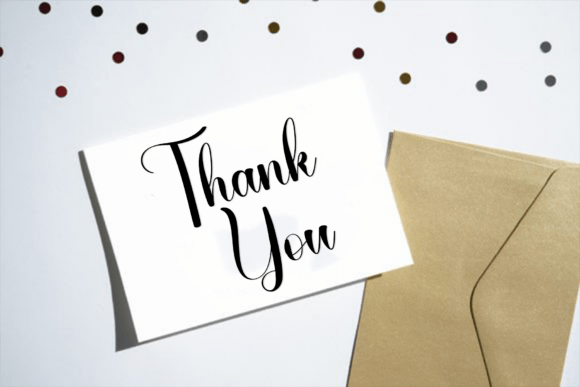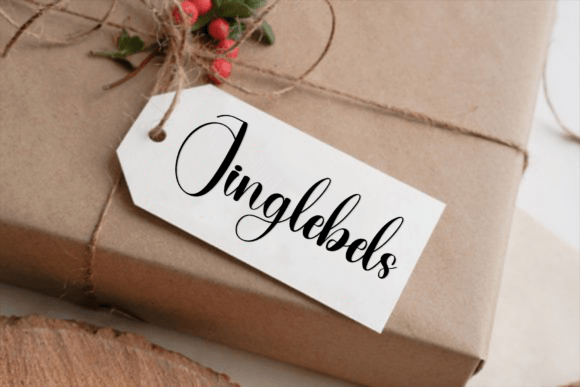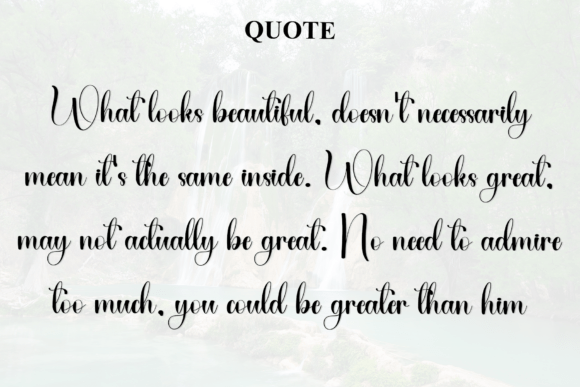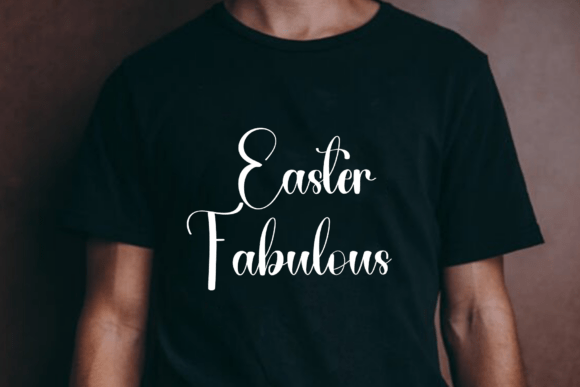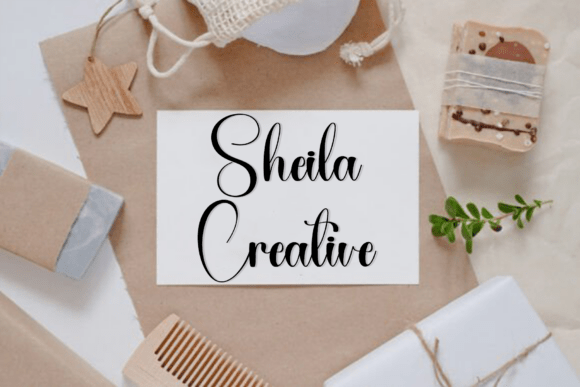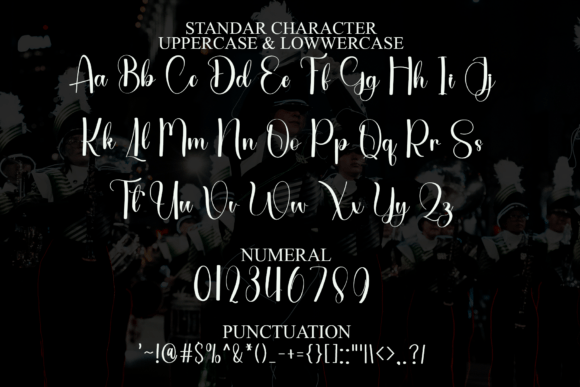
Unlock the Magic of Delighful Midnight Font
There’s something special about a late-night creative session, the world outside has slowed down, and it’s just you, your laptop, and the blank canvas of a new project. The hours tick by, and before you know it, the clock strikes midnight, but the ideas keep flowing. This is where the perfect font can make all the difference – a font that’s warm, inviting, and makes your design feel like a work of art.
Enter Delighful Midnight Font, a casual and creative typeface that’s designed to bring a smile to your face. With its round, playful strokes, this font is perfect for personal projects, invitations, and social media graphics that need a touch of warmth and friendliness. As a designer, you’ll appreciate the unique charm of Delighful Midnight Font, which adds a personal touch to any design.
Delighful Midnight Font Key Features
- Font Family: Delighful Midnight Font
- Unique Characteristics:
- Hand-drawn, elegant script style
- Perfect for creating a sophisticated, romantic atmosphere
- Wide range of ligatures and swashes for added flair
Delighful Midnight Font Review
Overall, I’d say the Delighful Midnight Font is a decent addition to any designer’s toolkit, but it’s not without its quirks. ✨ One thing that stands out is the unique aesthetic – it’s got a lovely, dreamy quality that’s perfect for projects that need a touch of whimsy.
The font is highly legible, even at smaller sizes, and the letterforms are well-balanced and elegant. The bold weights are particularly striking, making it a great choice for headings and titles. ✨ I also appreciate the subtle texture and nuance in the font’s design, which adds depth and interest to text.
- ⚠️ Limited language support – it’s not suitable for projects that require a wide range of languages.
- ⚠️ Not ideal for body text – while it’s legible, it can feel a bit too ornate for long blocks of text.
Overall, I’d say the Delighful Midnight Font is a solid choice for designers who want to add a bit of personality to their projects. While it’s not without its limitations, it’s a great option for titles, headings, and other short-form text. With a little creative restraint, it can be a real showstopper.
Delighful Midnight Font is perfect for creating:
– Elegant invitations and event materials
– Sophisticated business cards and marketing materials
– Unique and creative blog posts and social media content